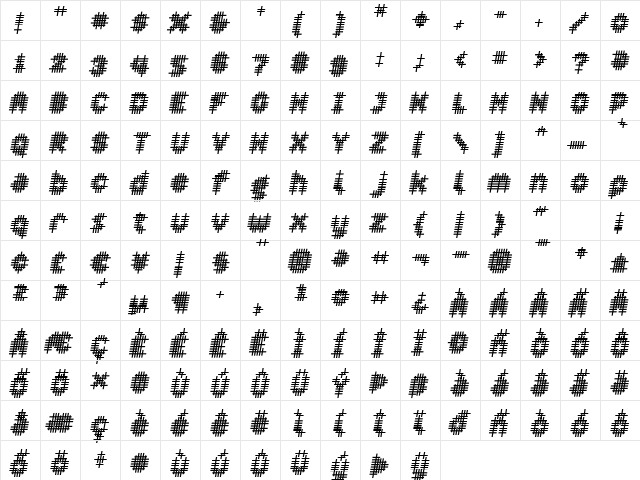
Overcross BoldOblique
Design Context for Overcross Typeface
Overcross is a composed and adaptable typeface that performs quietly and consistently across a wide range of design contexts. Its italic angle brings a sense of urgency and motion to the letterforms. Its bold stroke weight gives it real presence on the page.